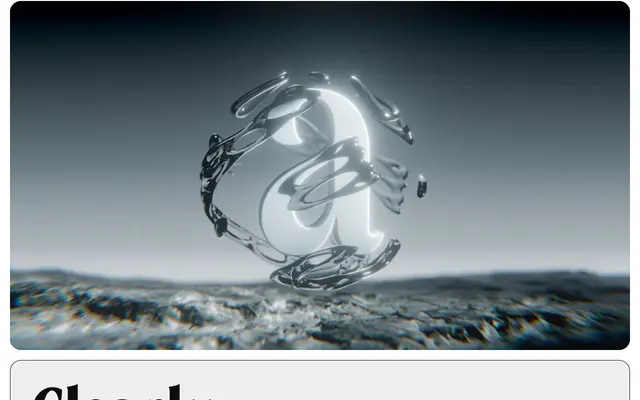
Clearly
A flared display serif by Brian Dove spanning seven weights, drawing on Old-style and Victorian era sources for book covers, logotypes and headline work.
Built around condensed letterforms with soft curled details on some terminals and sharp points on others, Clearly occupies a tonal middle ground between warmth and severity. Contrast increases through the darker weights, giving the heavier cuts a more commanding presence suited to large-scale settings. OpenType features include alternate R forms, curly terminal variants for C, G, S and s, case-sensitive forms, and both lining and oldstyle figures.
Clearly uses flared terminals and high contrast derived from Old-style and Victorian serif traditions, placing it firmly in the serif category with a display-oriented, flared subcategory rather than a conventional bracketed or unbracketed serif.